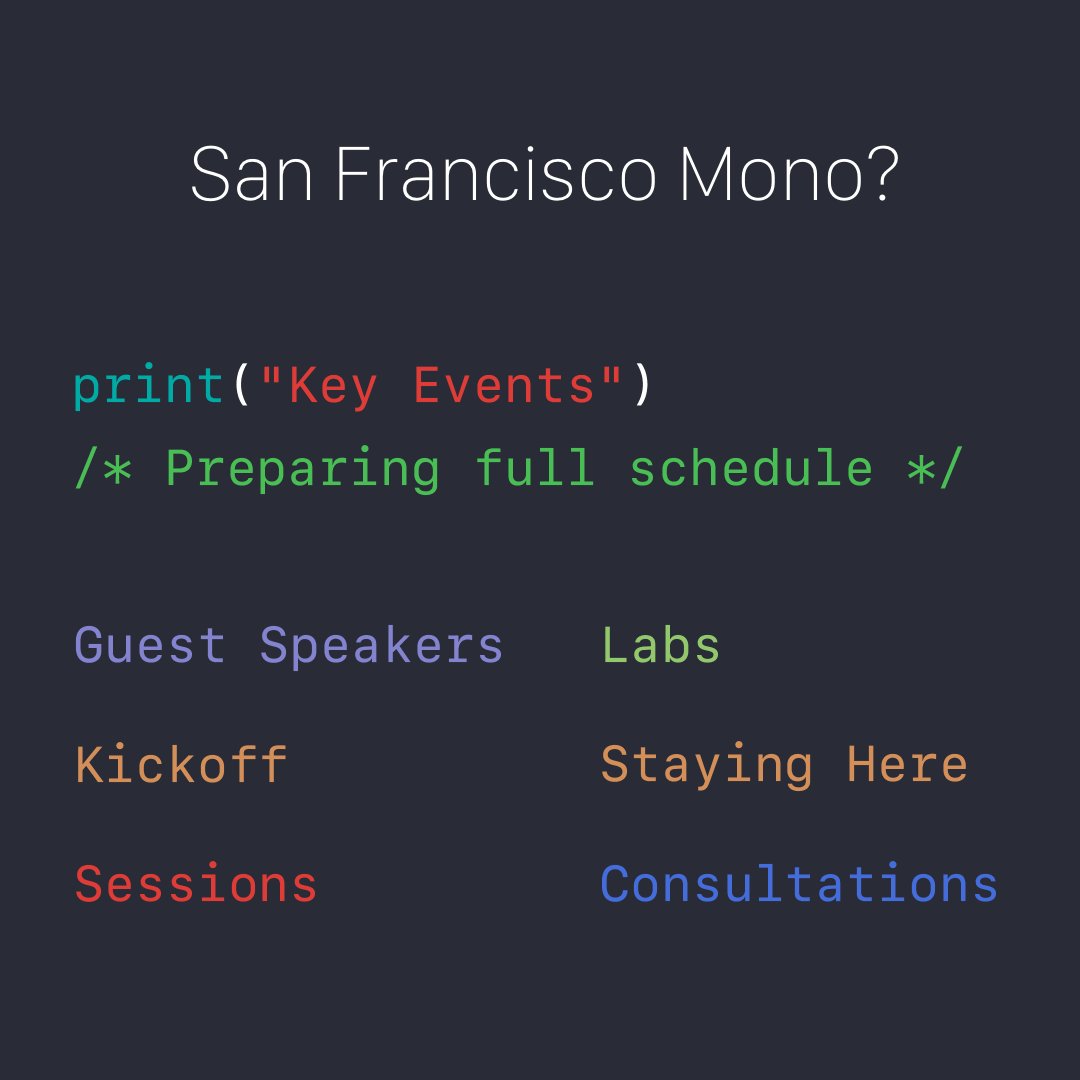
Sf Mono Font
Sf Mono Font - Web sf mono is a monospaced variant of san francisco, an apple designed typeface that provides a consistent, legible, and friendly. San francisco pro for ios, macos, and tvos. San francisco compact for watchos. Web san francisco fonts for windows 10.
Web sf mono is a monospaced variant of san francisco, an apple designed typeface that provides a consistent, legible, and friendly. San francisco compact for watchos. San francisco pro for ios, macos, and tvos. Web san francisco fonts for windows 10.
Web sf mono is a monospaced variant of san francisco, an apple designed typeface that provides a consistent, legible, and friendly. Web san francisco fonts for windows 10. San francisco pro for ios, macos, and tvos. San francisco compact for watchos.
San francisco compact for watchos. Web sf mono is a monospaced variant of san francisco, an apple designed typeface that provides a consistent, legible, and friendly. Web san francisco fonts for windows 10. San francisco pro for ios, macos, and tvos.
San francisco compact for watchos. Web san francisco fonts for windows 10. Web sf mono is a monospaced variant of san francisco, an apple designed typeface that provides a consistent, legible, and friendly. San francisco pro for ios, macos, and tvos.
San francisco compact for watchos. San francisco pro for ios, macos, and tvos. Web sf mono is a monospaced variant of san francisco, an apple designed typeface that provides a consistent, legible, and friendly. Web san francisco fonts for windows 10.
Web sf mono is a monospaced variant of san francisco, an apple designed typeface that provides a consistent, legible, and friendly. San francisco compact for watchos. Web san francisco fonts for windows 10. San francisco pro for ios, macos, and tvos.
San francisco compact for watchos. Web san francisco fonts for windows 10. San francisco pro for ios, macos, and tvos. Web sf mono is a monospaced variant of san francisco, an apple designed typeface that provides a consistent, legible, and friendly.
Web sf mono is a monospaced variant of san francisco, an apple designed typeface that provides a consistent, legible, and friendly. Web san francisco fonts for windows 10. San francisco compact for watchos. San francisco pro for ios, macos, and tvos.
San francisco pro for ios, macos, and tvos. San francisco compact for watchos. Web sf mono is a monospaced variant of san francisco, an apple designed typeface that provides a consistent, legible, and friendly. Web san francisco fonts for windows 10.
San francisco pro for ios, macos, and tvos. Web san francisco fonts for windows 10. San francisco compact for watchos. Web sf mono is a monospaced variant of san francisco, an apple designed typeface that provides a consistent, legible, and friendly.
San francisco compact for watchos. Web san francisco fonts for windows 10. Web sf mono is a monospaced variant of san francisco, an apple designed typeface that provides a consistent, legible, and friendly. San francisco pro for ios, macos, and tvos.
Web san francisco fonts for windows 10. San francisco compact for watchos. Web sf mono is a monospaced variant of san francisco, an apple designed typeface that provides a consistent, legible, and friendly. San francisco pro for ios, macos, and tvos.
San Francisco Pro For Ios, Macos, And Tvos.
Web sf mono is a monospaced variant of san francisco, an apple designed typeface that provides a consistent, legible, and friendly. San francisco compact for watchos. Web san francisco fonts for windows 10.